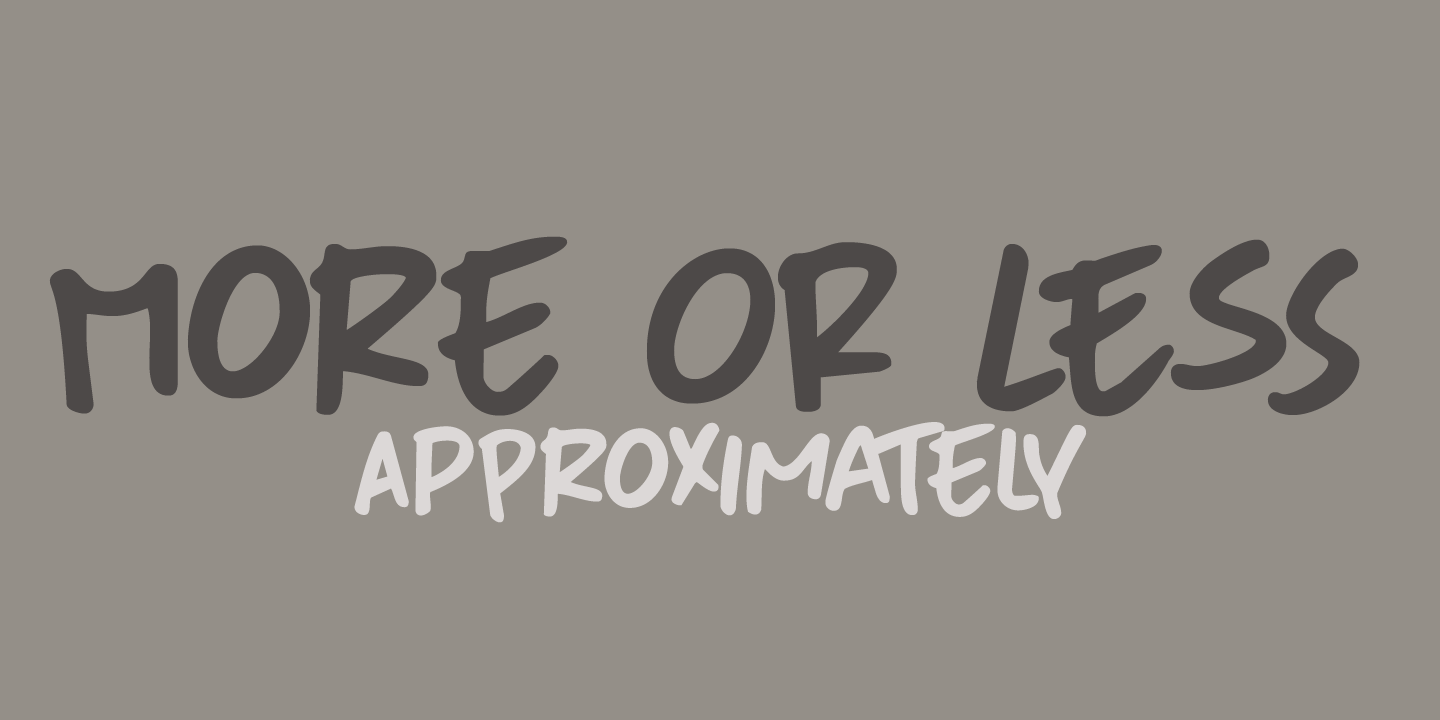
This versatile typeface is perfect for comparison websites, statistical presentations, financial analysis firms, data visualization projects, survey companies, research institutions, polling organizations, decision-making apps, choice-based platforms, comparison shopping sites, evaluation services, and analytical consulting firms. The font's balanced design makes it ideal for projects that emphasize choices, comparisons, and the thoughtful consideration of options in decision-making processes.
More Or Less Font is exciting because it embodies the essence of balanced decision-making and thoughtful comparison through its harmonious letterforms and choice-inspired character structure. The font's measured proportions and neutral stance create an atmosphere of objectivity, careful consideration, and informed judgment, making it perfect for brands that want to convey reliability, analytical thinking, and the wisdom of weighing all options. Its balanced personality ensures instant trust while maintaining excellent readability across various analytical applications.
The More Or Less Font family includes multiple comparison variations: Light Option, Regular Choice, Medium Decision, Bold Analysis, and Black Conclusion weights, each available in standard and narrow versions. Special analytical editions feature mathematical alternates, comparison symbols, and statistical ornaments that enhance the font's objective appeal, providing designers with comprehensive tools for creating authentic comparison-focused communications.
Make informed design decisions with More Or Less Font Free Download – a typeface that represents balanced judgment and thoughtful analysis. Whether you're developing comparison platforms, analytical presentations, or decision-support materials, this font delivers the objective clarity and balanced perspective your projects need while ensuring exceptional performance and analytical impact across all comparison and decision-making applications.